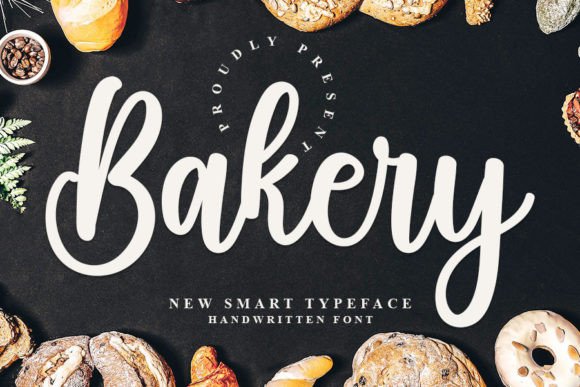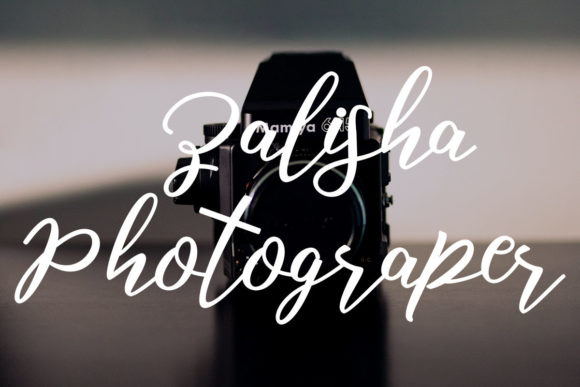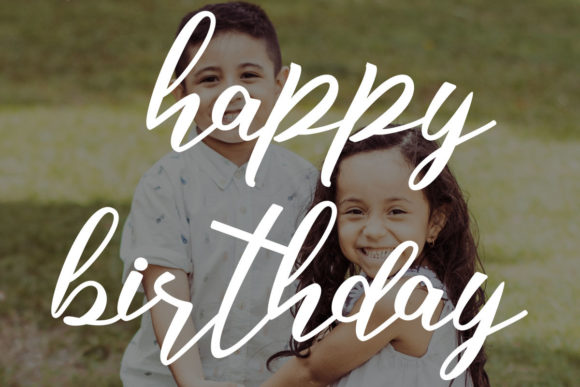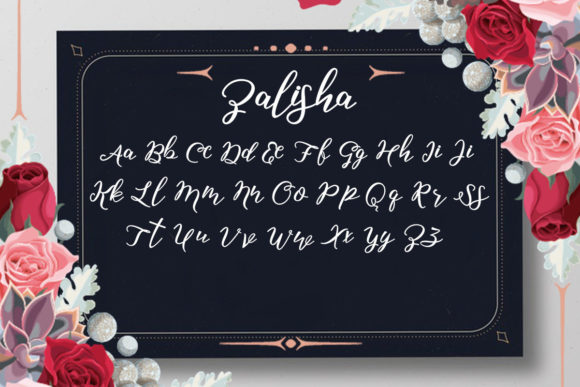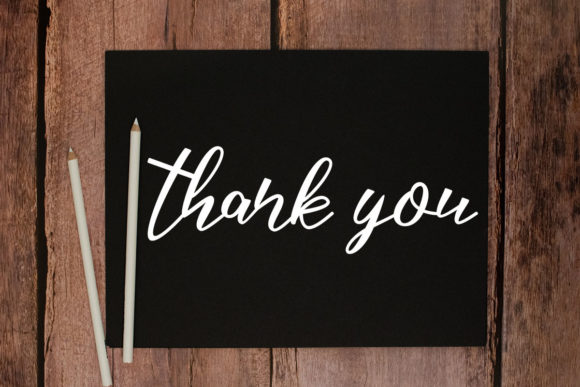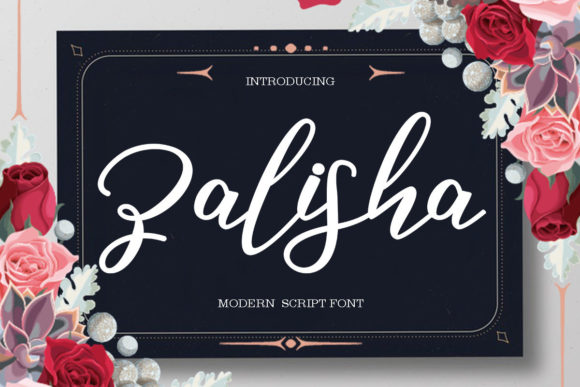
About Zalisha Script Font
Zalisha Script is a new modern script font with an irregular baseline. Trendy and stylish, Zalisha Script looks lovely on wedding invitations, thank you cards, quotes, greeting cards, logos, business cards and more.